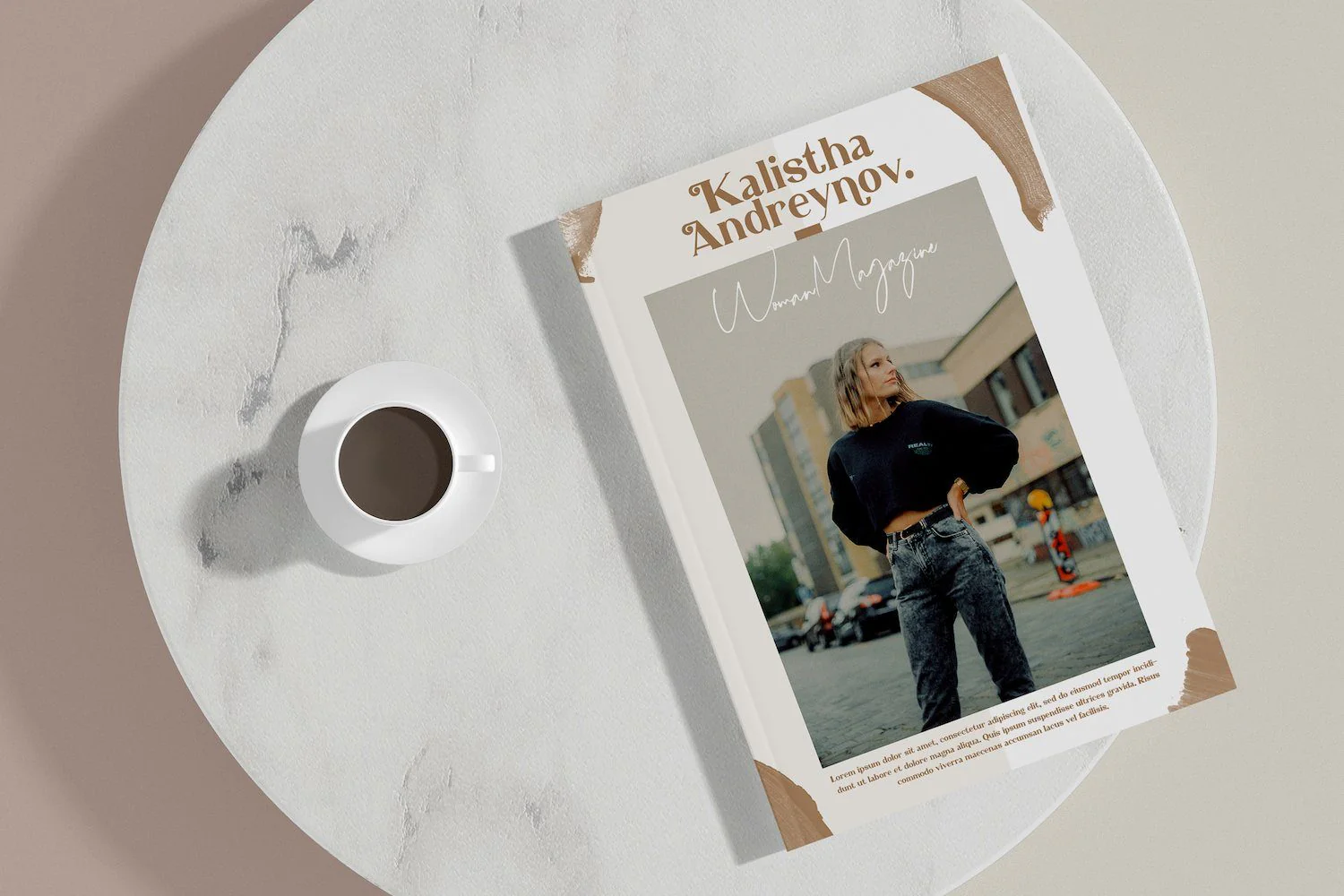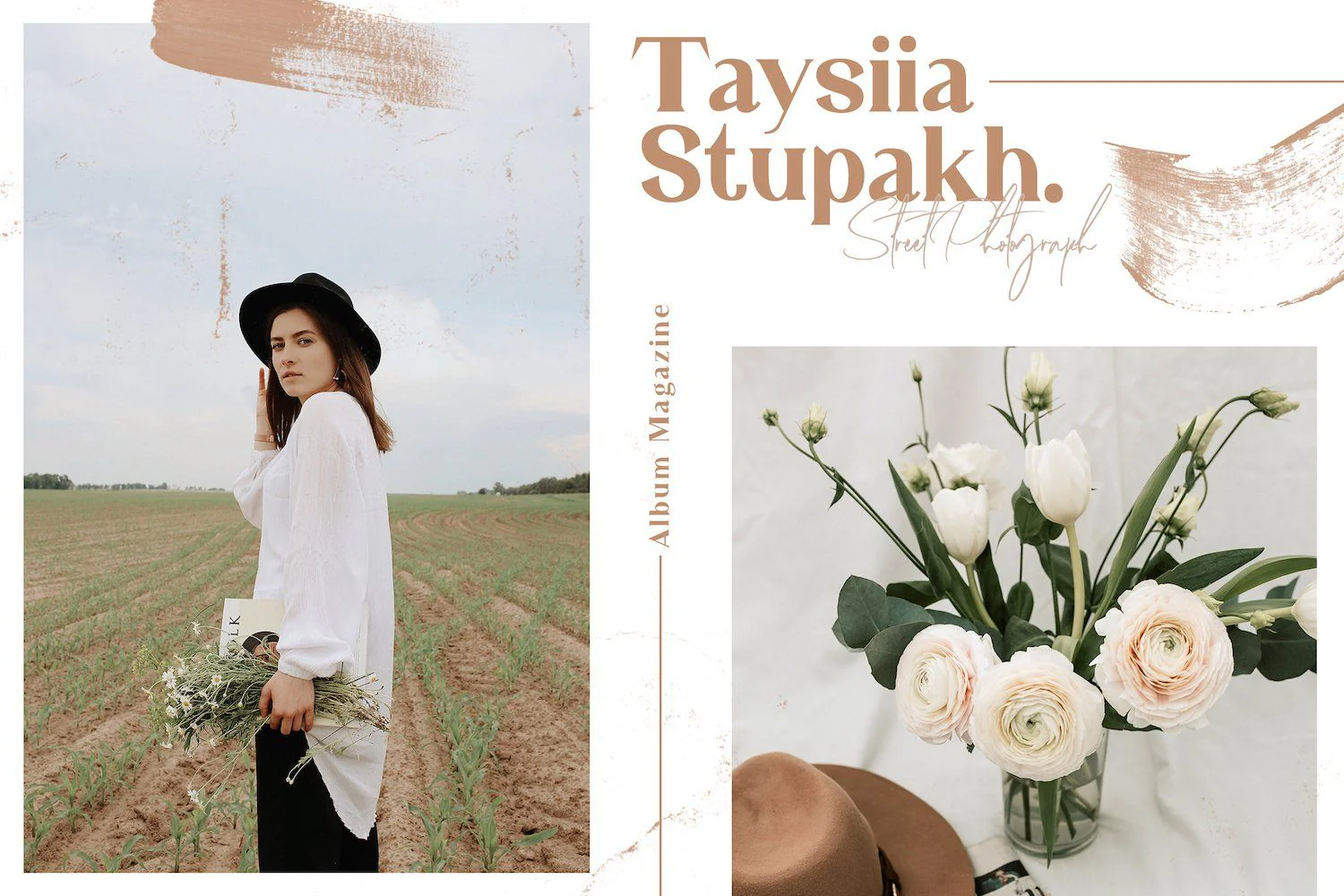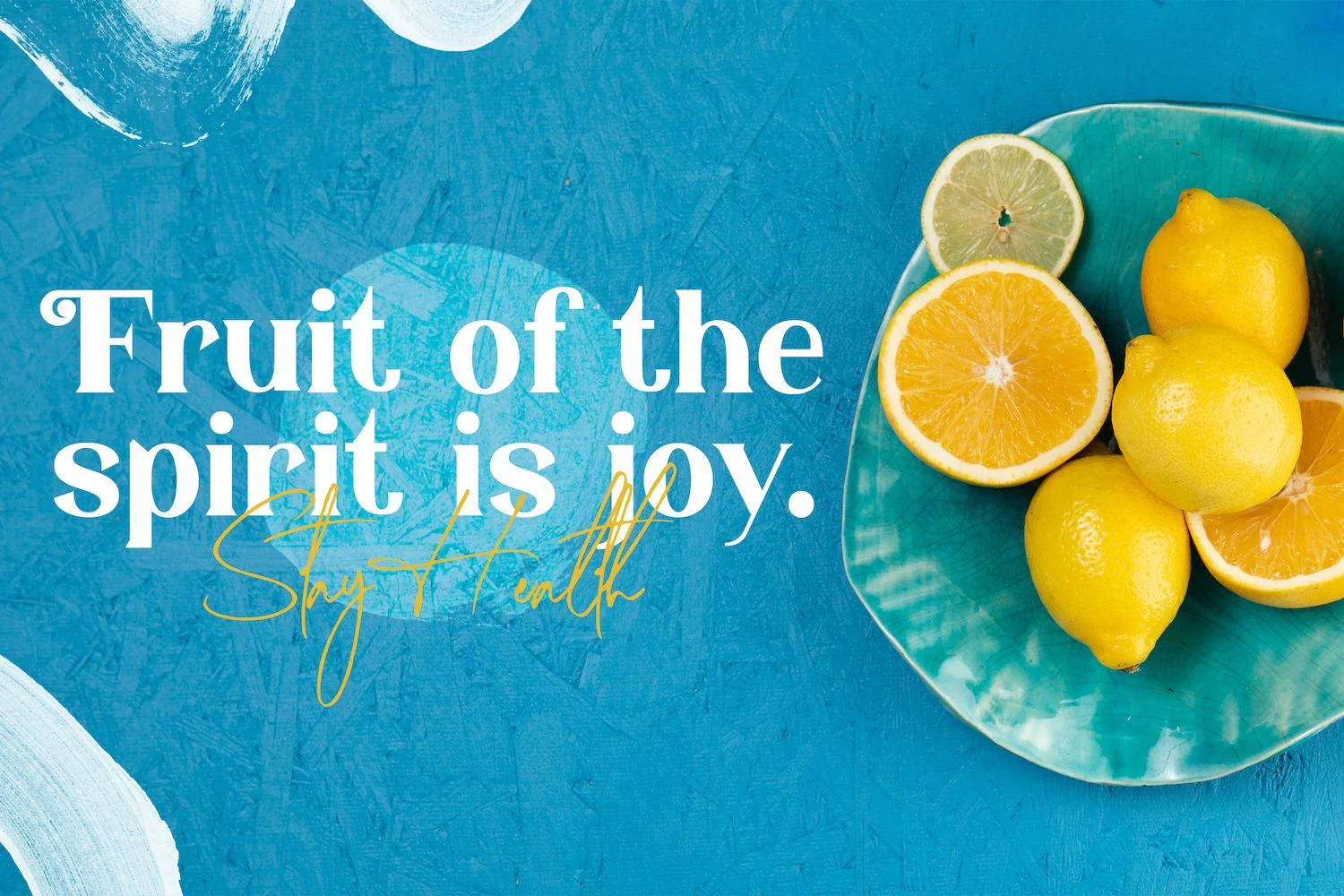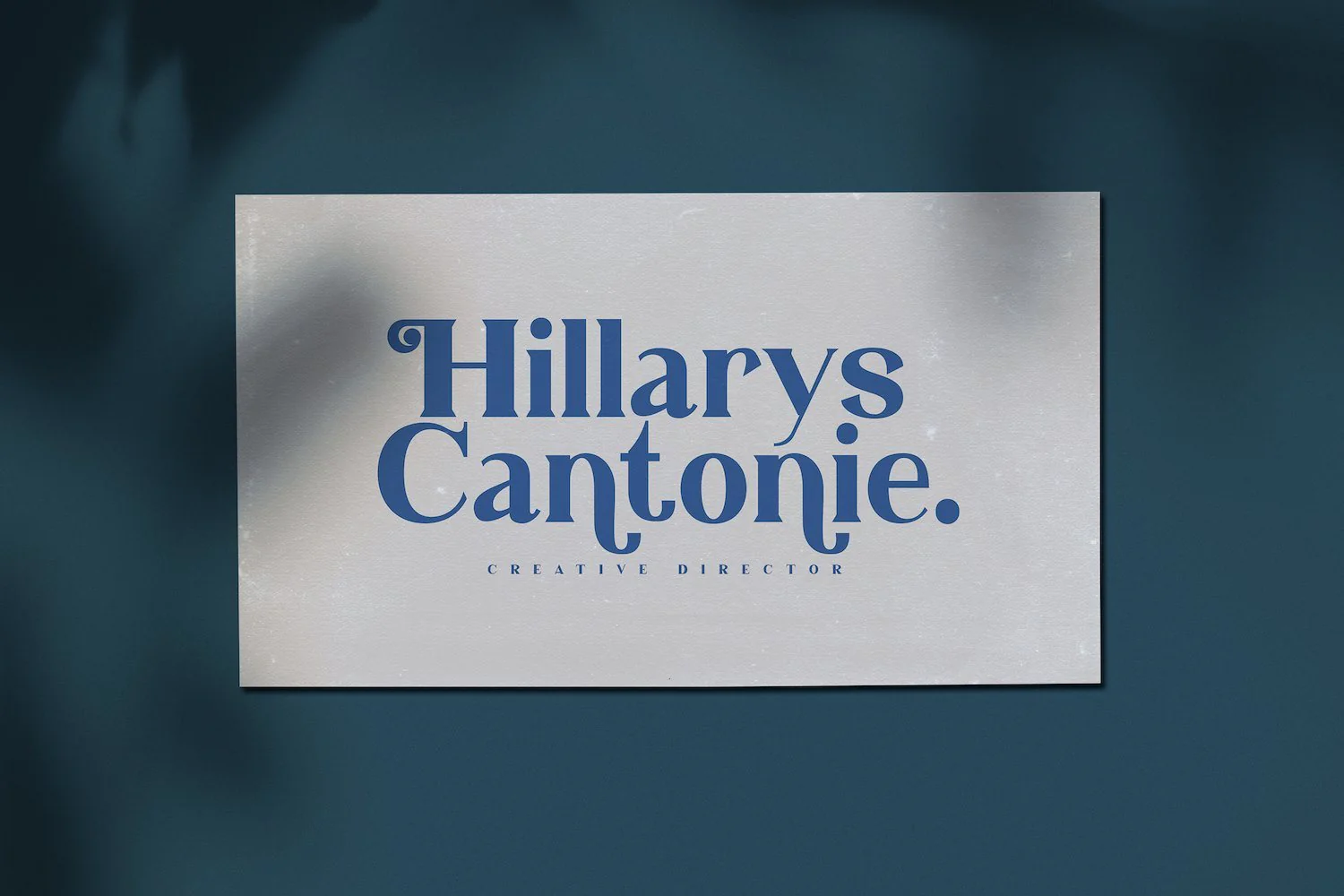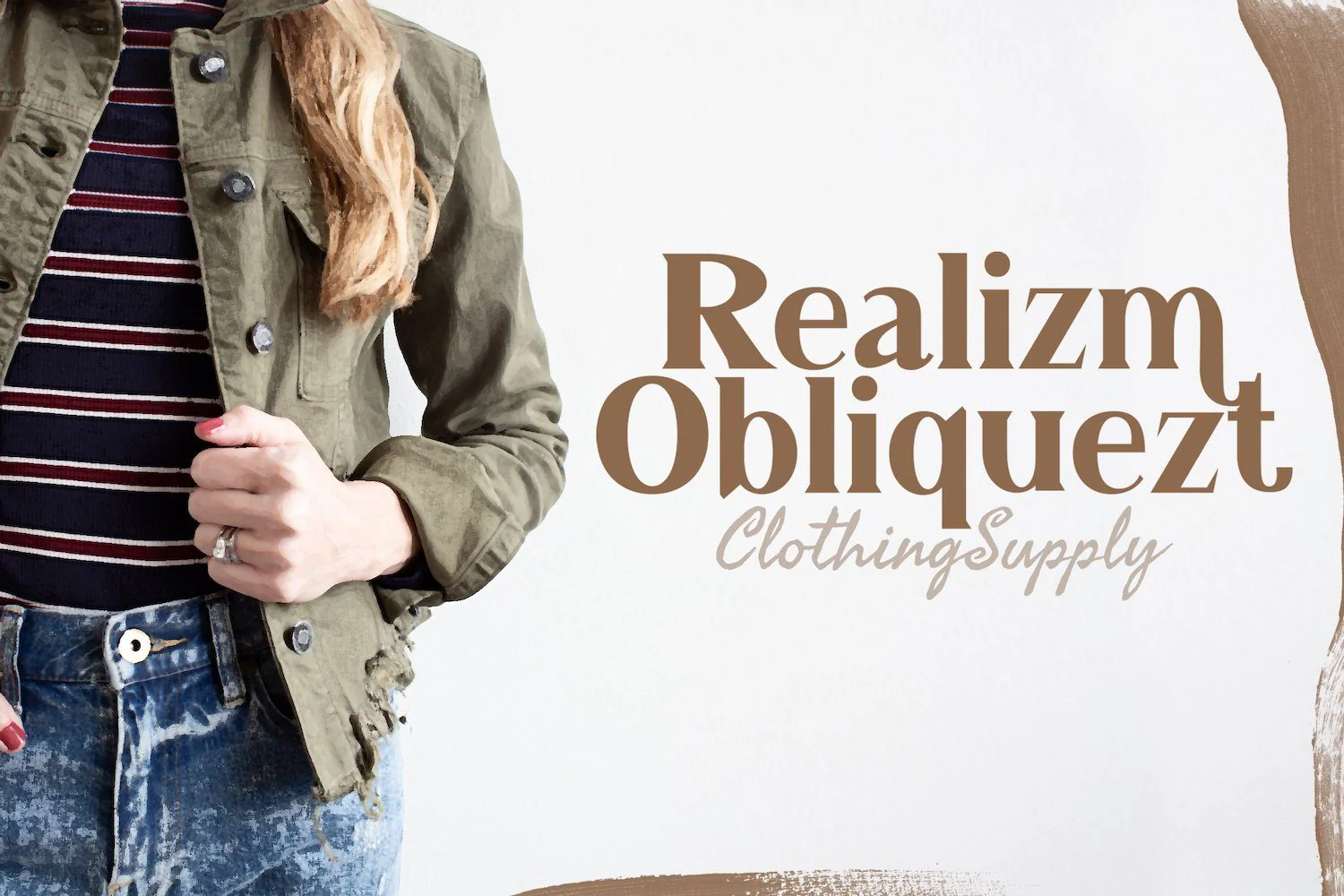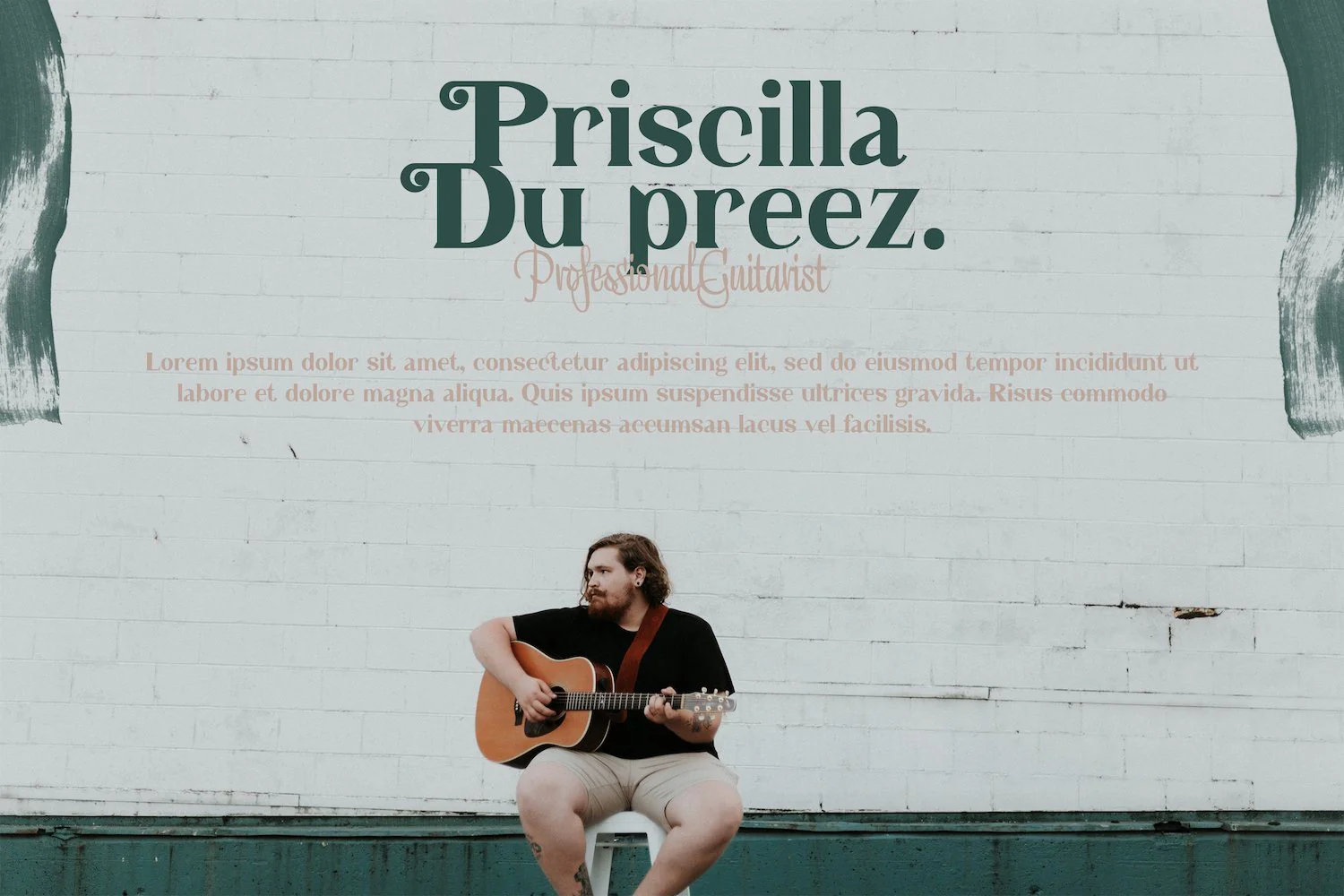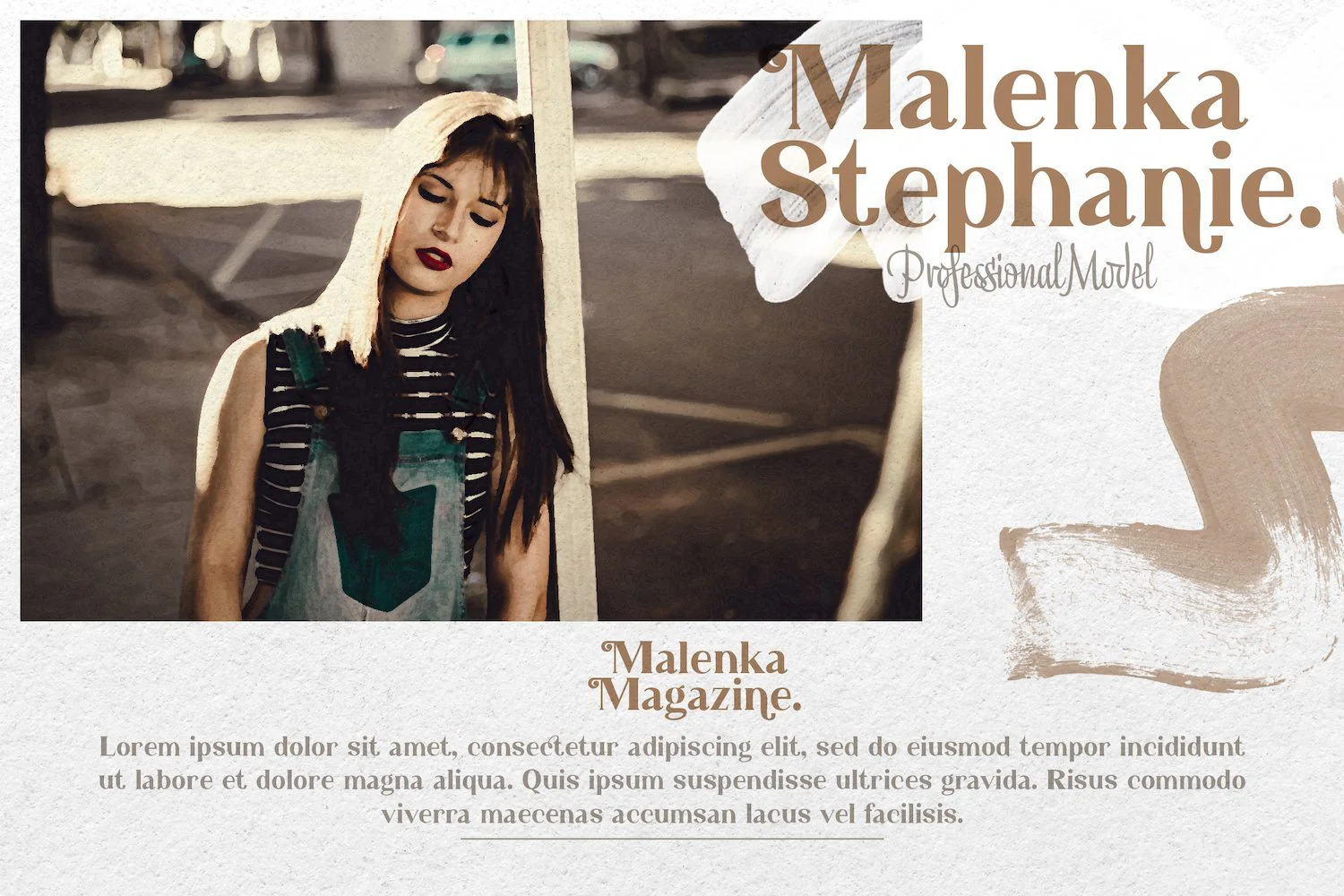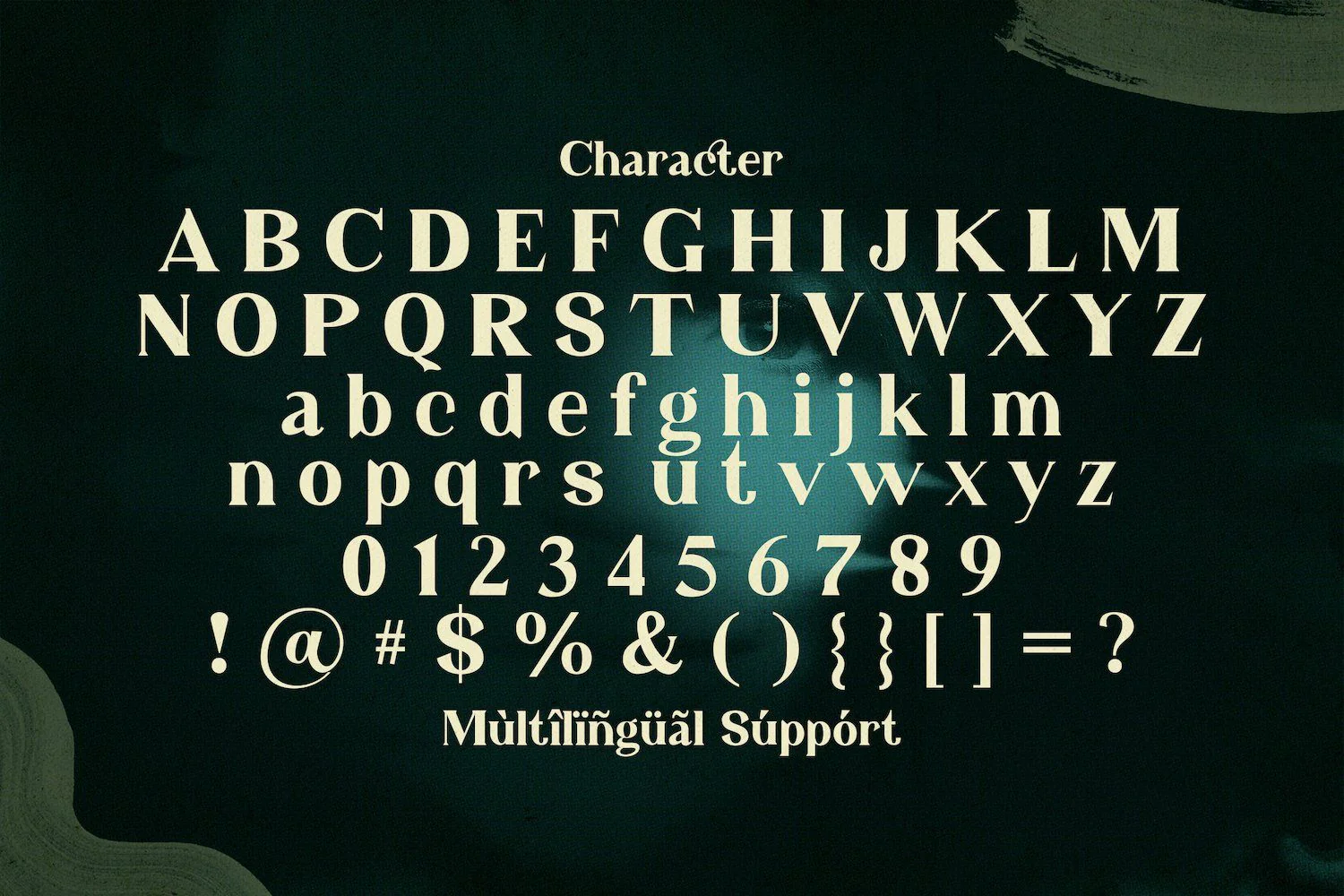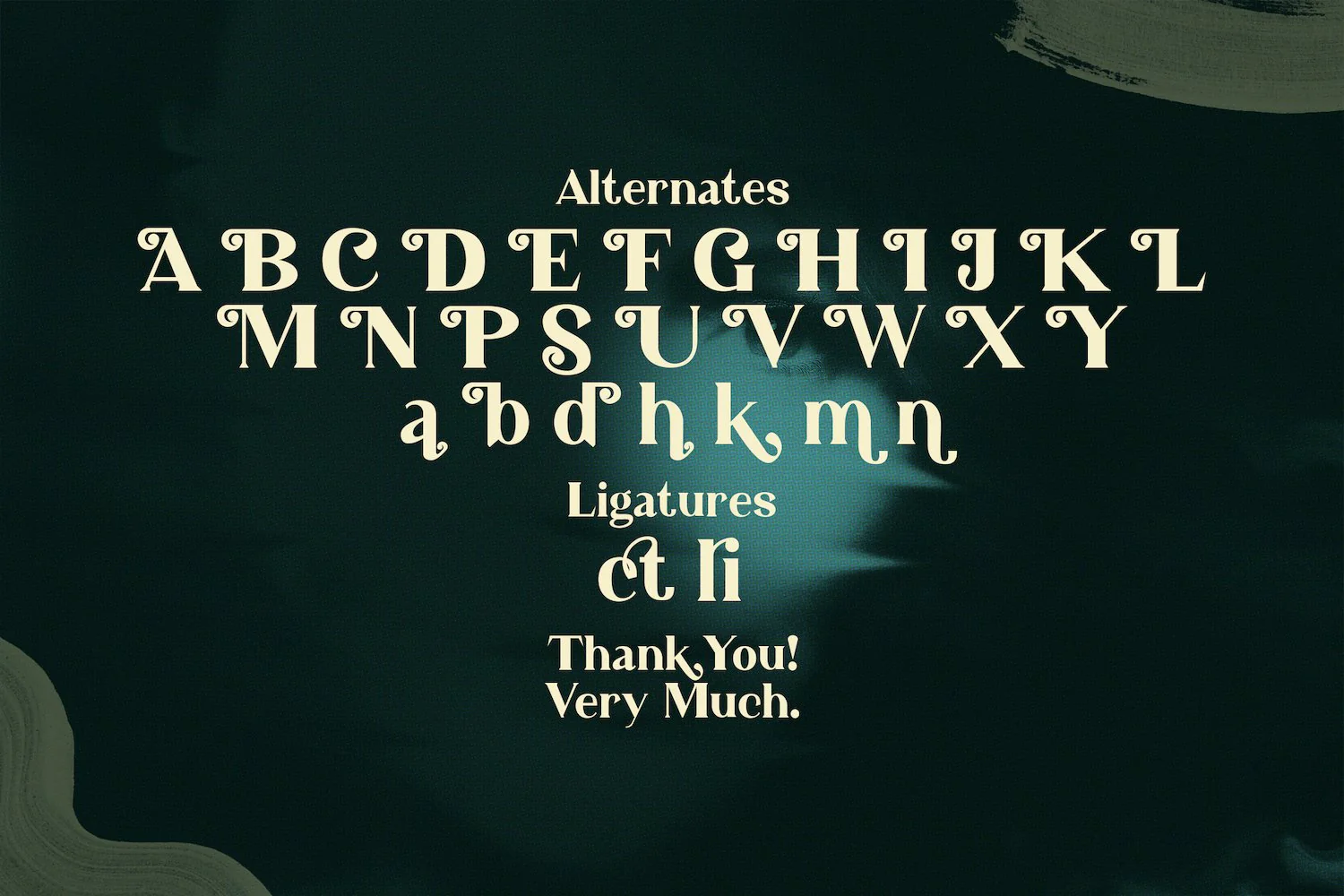
Phantom Shrine - Beautiful Serif Font
Introducing Phantom Shrine - Beautiful Serif Font
Phantom Shrine is an authentic and neat serif font. It can easily be matched to an incredibly large set of projects, so add it to your creative ideas and notice how it makes them stand out!
Introducing Phantom Shrine - Beautiful Serif Font
Phantom Shrine is an authentic and neat serif font. It can easily be matched to an incredibly large set of projects, so add it to your creative ideas and notice how it makes them stand out!